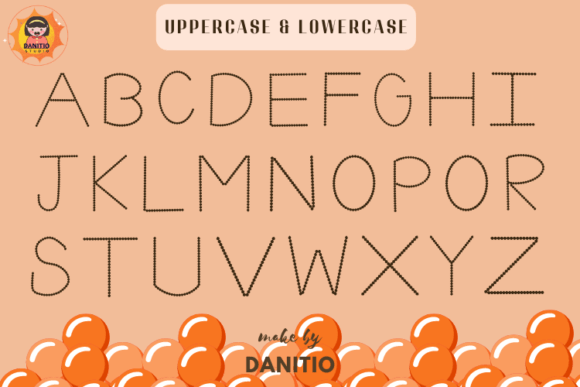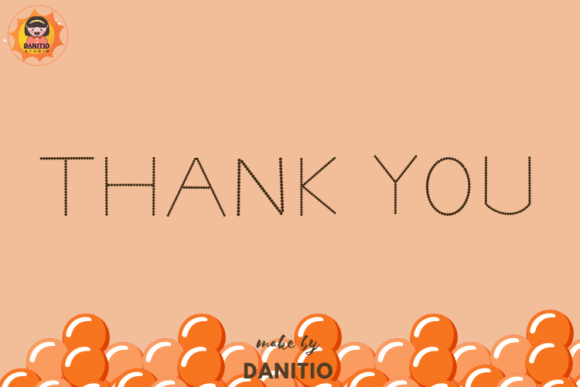
Introducing Fish Roe Font: The Ultimate Decorative Font for Creative Designs
Are you tired of using the same old fonts for your design projects? Look no further! Fish Roe Font is here to revolutionize your creative endeavors with its cool, unique, and attractive decorative style. This fun and authentic font is perfect for designers and crafters who want to add a touch of personality to their work.
What Makes Fish Roe Font So Special?
Fish Roe Font is a one-of-a-kind decorative font that embodies the essence of fun and authenticity. Its distinctive style makes it an excellent choice for a variety of design projects, from t-shirt designs and posters to social media graphics and more. The font’s unique charm is sure to capture the attention of your audience and leave a lasting impression.
Endless Design Possibilities with Fish Roe Font
The versatility of Fish Roe Font is one of its most significant advantages. It can be used for a wide range of design projects, including:
- T-shirt designs: Add a playful touch to your apparel designs with Fish Roe Font.
- Posters: Create eye-catching posters for events, promotions, or advertisements.
- Social media graphics: Elevate your social media presence with engaging graphics that showcase your brand’s personality.
- Invitations: Design unique and stylish invitations for parties, weddings, or other special occasions.
- Packaging: Add a decorative touch to your product packaging and make it stand out on store shelves.
Why Choose Fish Roe Font?
There are many reasons why Fish Roe Font should be your go-to decorative font for design projects. Here are a few:
- Unique style: Fish Roe Font boasts a distinctive style that will set your designs apart from the crowd.
- Easy to use: The font is easy to read and works well in various digital and print formats.
- Highly versatile: Use Fish Roe Font for a wide range of design projects, from casual to formal.
- Fun and playful: Add a touch of whimsy to your designs with Fish Roe Font’s fun and playful vibe.
Tips for Using Fish Roe Font Effectively
To get the most out of Fish Roe Font, here are some tips to keep in mind:
- Experiment with colors: Fish Roe Font looks great in a variety of colors, so don’t be afraid to try out different hues and combinations.
- Mix and match: Combine Fish Roe Font with other fonts to create a unique and visually appealing design.
- Keep it simple: Don’t overcomplicate your design. Let Fish Roe Font be the focal point and keep your design clean and simple.
Get Creative with Fish Roe Font!
In conclusion, Fish Roe Font is an excellent choice for designers and crafters who want to create unique and eye-catching designs. Its fun and authentic style makes it perfect for a variety of projects, from t-shirt designs and posters to social media graphics and more. With its versatility, ease of use, and high-quality design, Fish Roe Font is sure to become a staple in your design library.